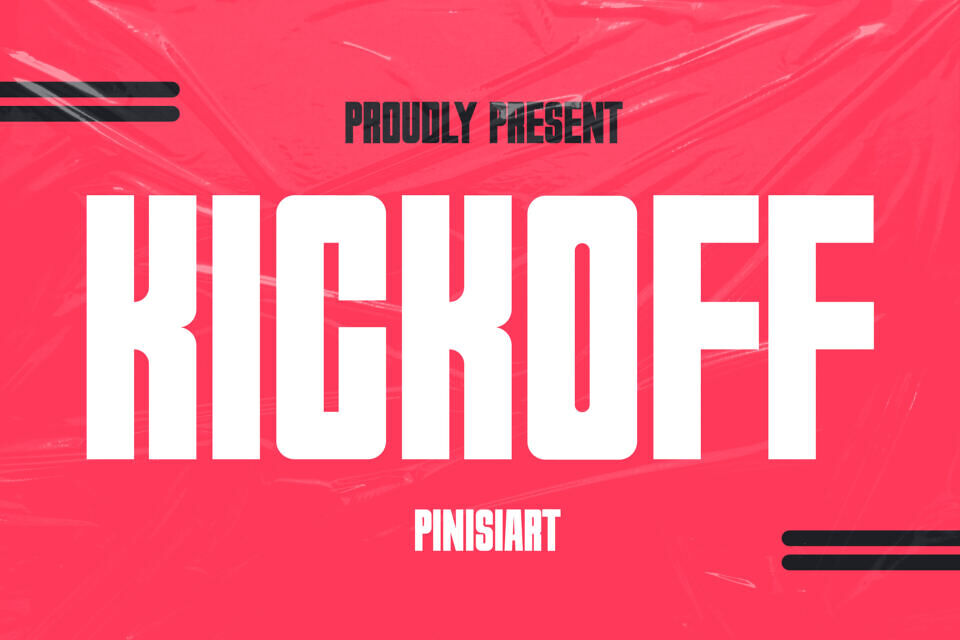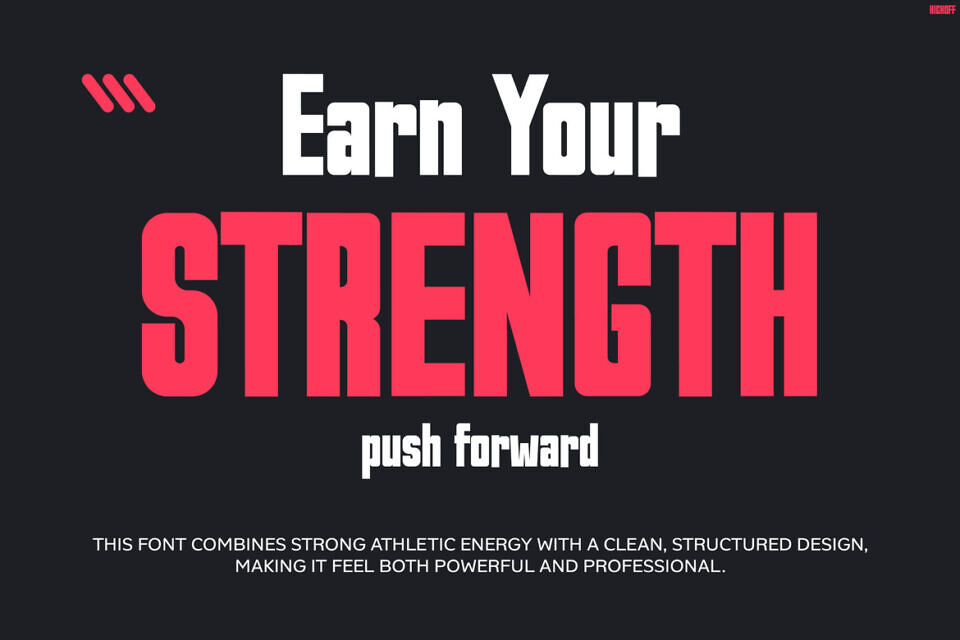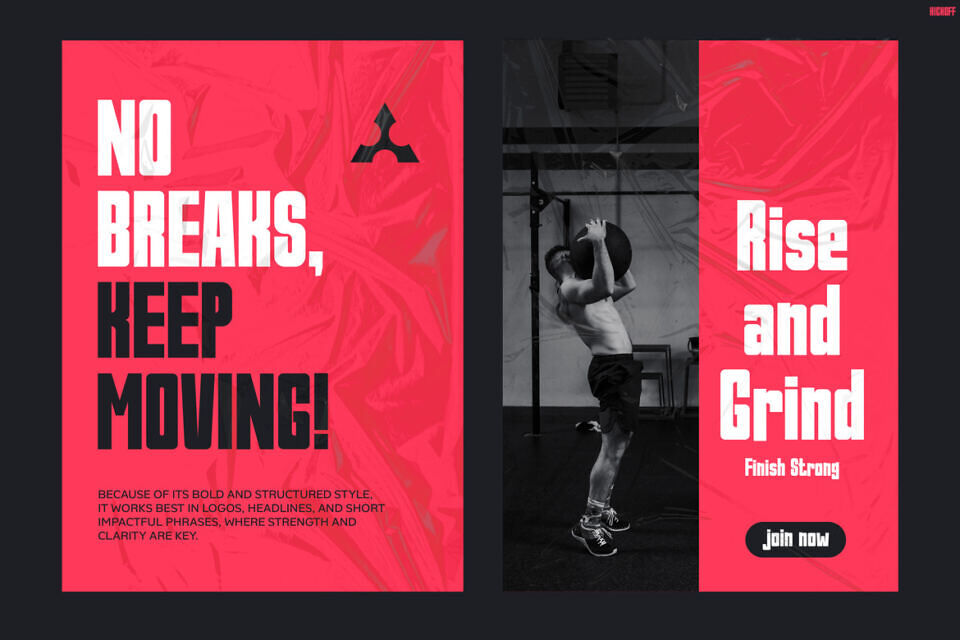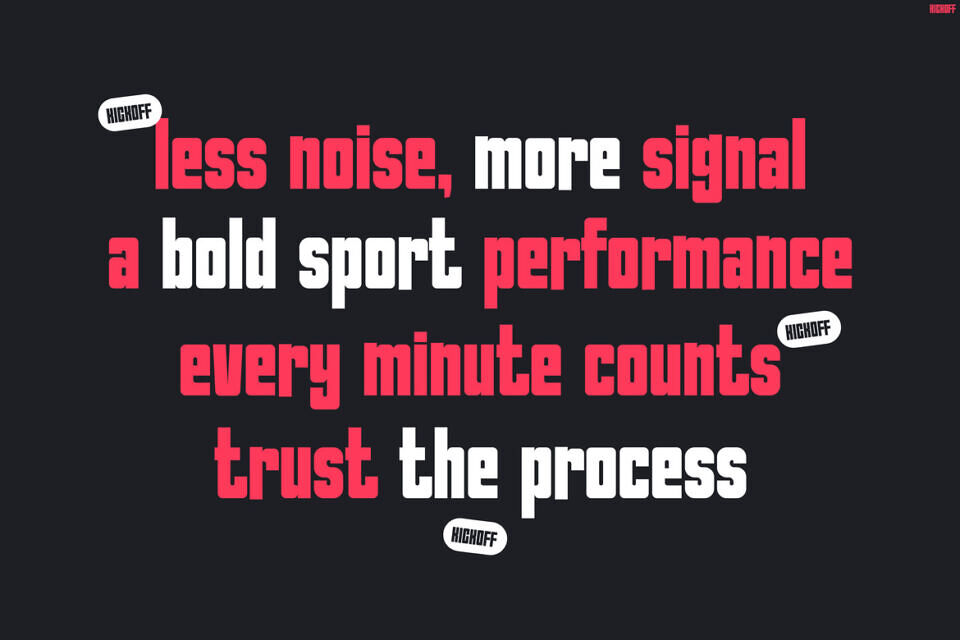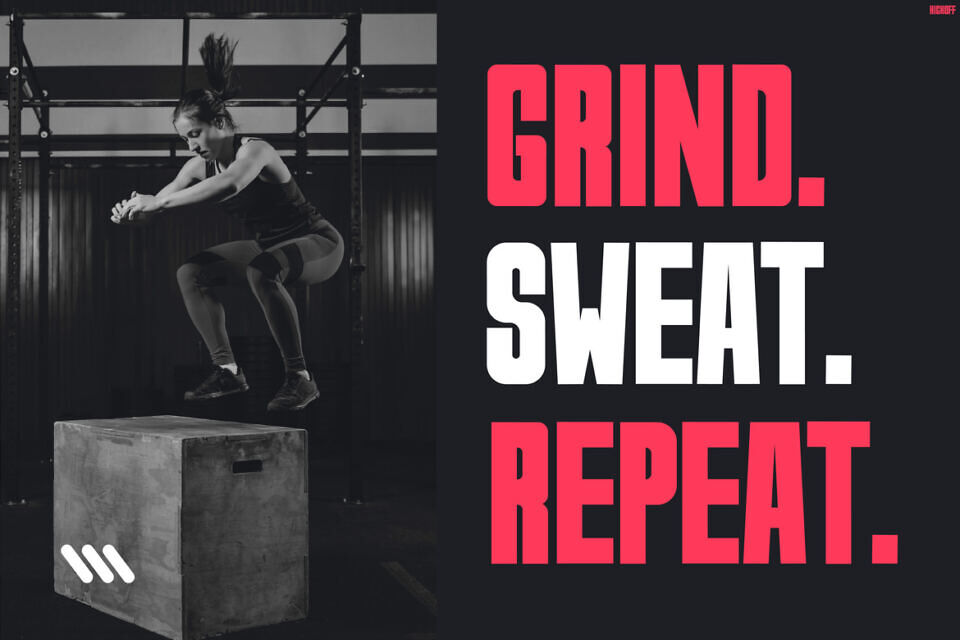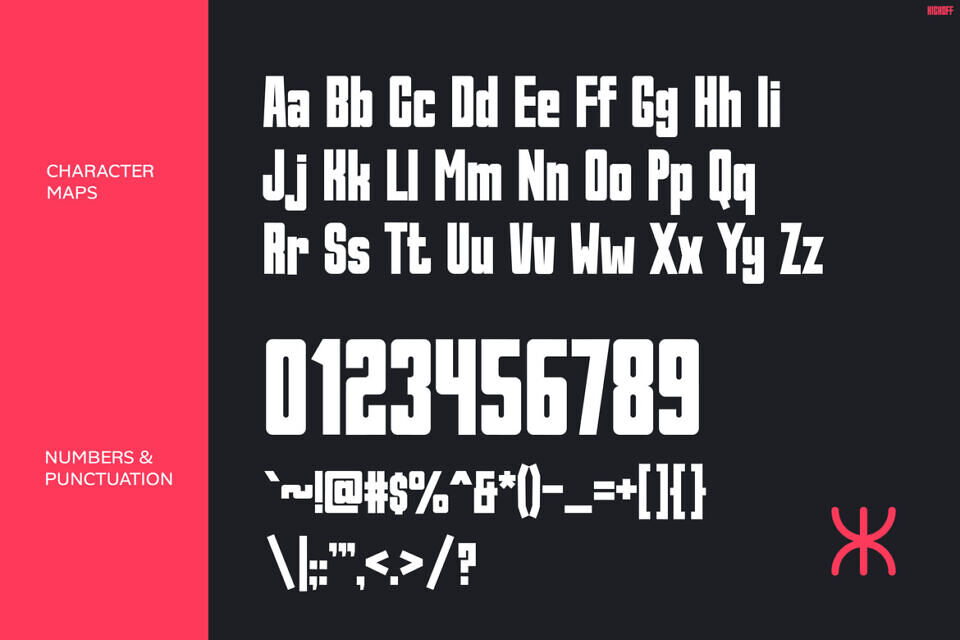
Kickoff is a powerful, high-impact display typeface designed to dominate attention instantly. Moreover, its tall, condensed letterforms and sharp edges create a striking and modern athletic aesthetic. In addition, the bold geometric structure enhances readability while still delivering an aggressive visual punch.
As a result, every composition feels energetic, fast, and performance-driven. Not only does it capture attention, but it also reinforces strength and discipline through its clean yet intense styling. Therefore, KICKOFF becomes a perfect solution for designers who want bold, confident visuals that stand out in competitive spaces.